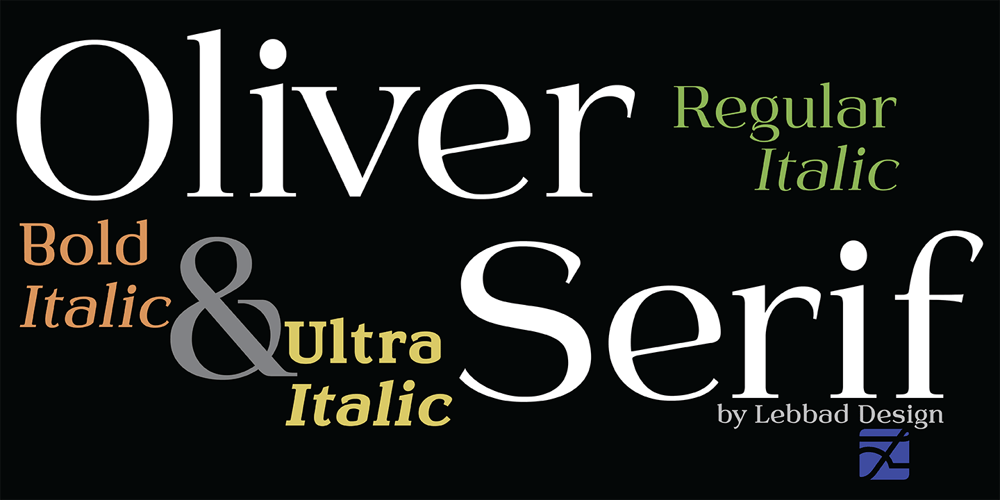
Oliver Serif
Oliver Serif font
Oliver Serif Font Family was designed by James A. Lebbad and published by Lebbad Design. Oliver Serif contains 6 styles and family package options. Oliver Serif, clean, contemporary and sophisticated. It is available in 3 distinctive weights-Regular, Bold and Ultra with matching italics. Oliver Serif is a fine choice for a variety of uses ranging from body text to bold dynamic headlines and branding applications. A perfect choice for both digital and print.